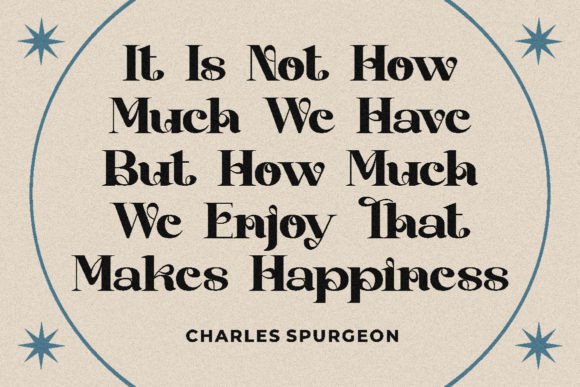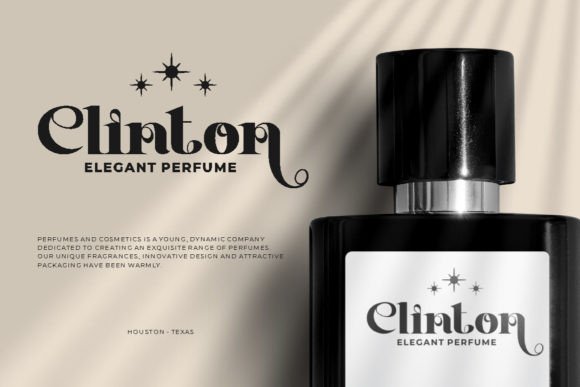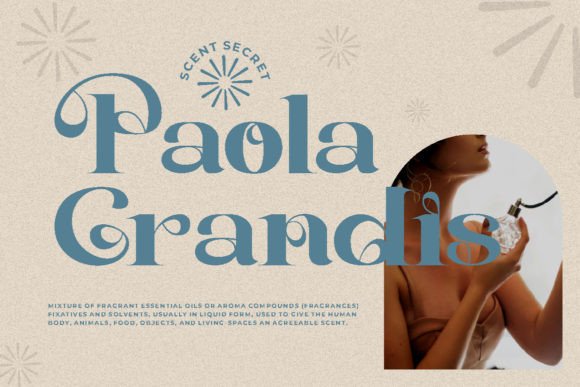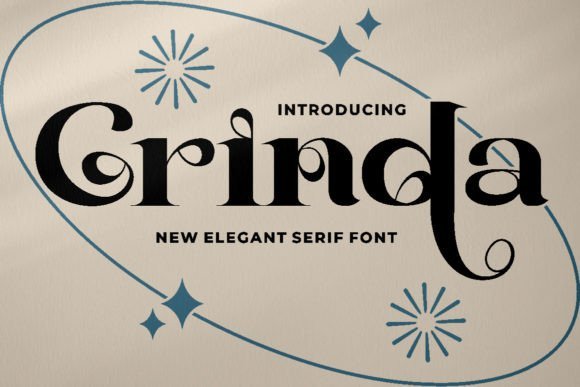
Introduction to Grinda Font
Grinda is a new elegant serif font, inspired by luxury serif from the classic cover and the elegant typeface style.
You can use Grinda font for logotype, heading, cover, poster, logos, quotes, product packaging, header, merchandise, social media & greeting cards, and many more .